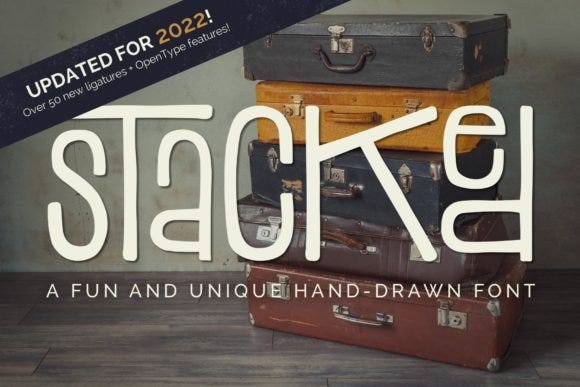
Retro Display Fonts: Instantly Add Vintage Vibe to Your Designs
In the fast-paced world of digital design, nothing makes a project stand out quite like a touch of nostalgic, vintage flair. If you’re looking to capture the iconic aesthetics of the 70s, 80s, or 90s, the easiest way to do it is with a killer retro display font.
These typefaces are perfect for everything from merchandise and branding to social media graphics and headline art. They instantly inject personality, energy, and a recognizable aesthetic that resonates with almost everyone. Forget subtle serifs; this is about bold statements, stacked letters, and a full commitment to the era.
💡 Font Highlight: Stacked 4
If you’re hunting for a display font that nails the vintage look with a playful, layered depth, look no further than Stacked 4.
esign that includes four distinct layers—perfect for creating eye-catching headers that pop off the screen. It is versatile enough to evoke a vintage athletic jersey, a classic video game title screen, or a funky disco flyer. It’s a design shortcut to a vibrant retro mood.
Whether you’re working on a new logo or just want your latest graphic to grab attention, Stacked 4 is a must-have in your font library.
Using high-quality display fonts like this not only saves you time but ensures your project communicates a clear, energetic vintage story right away. Stop scrolling for hours and start designing!